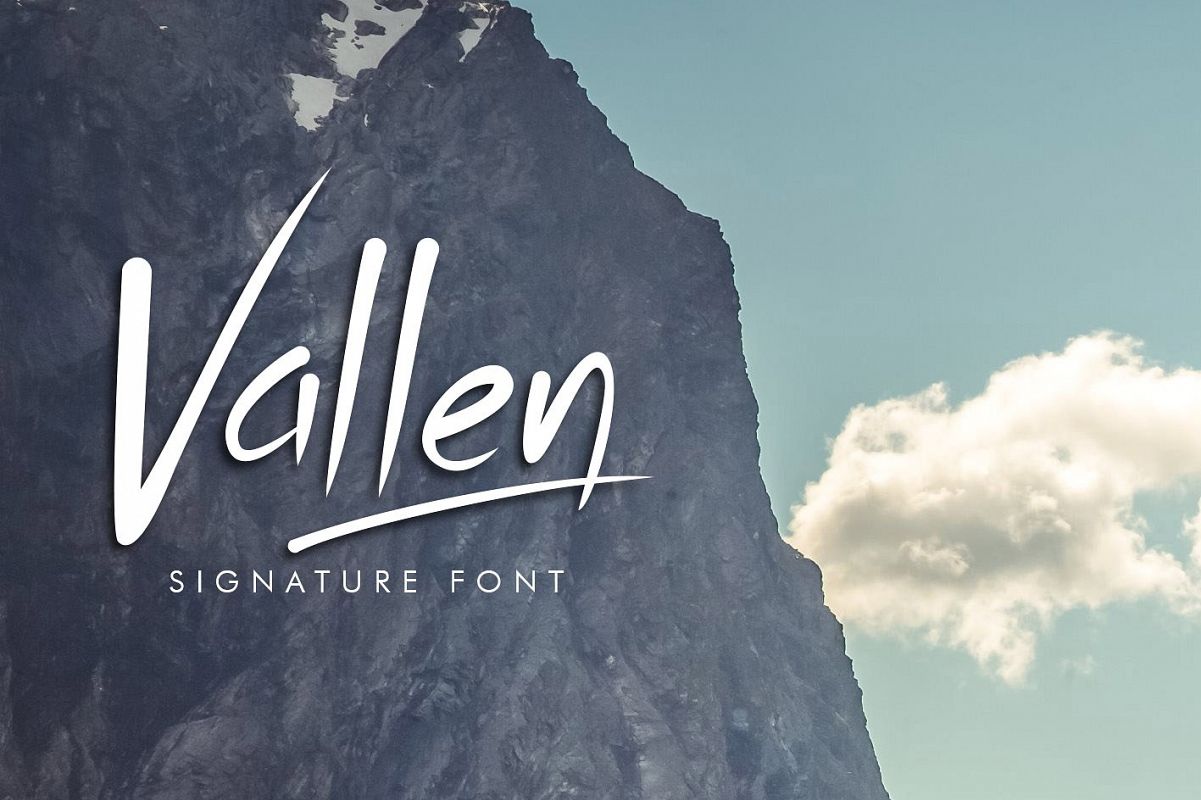
Introducing vallen, signature fonts and characters with a brush
stroke. Each character in this font hand drawn to give the feel of
organic and maintain authenticity.
Vallen typeface is suitable for your design project particularly for
logos, quotes, clothing, advertising, image overlay, poster, cover
films, greeting cards and web banners.
Features:- Vallen support special characters to cover a wide range of languages.
- Vallen contains alternates for all the lowercase characters.